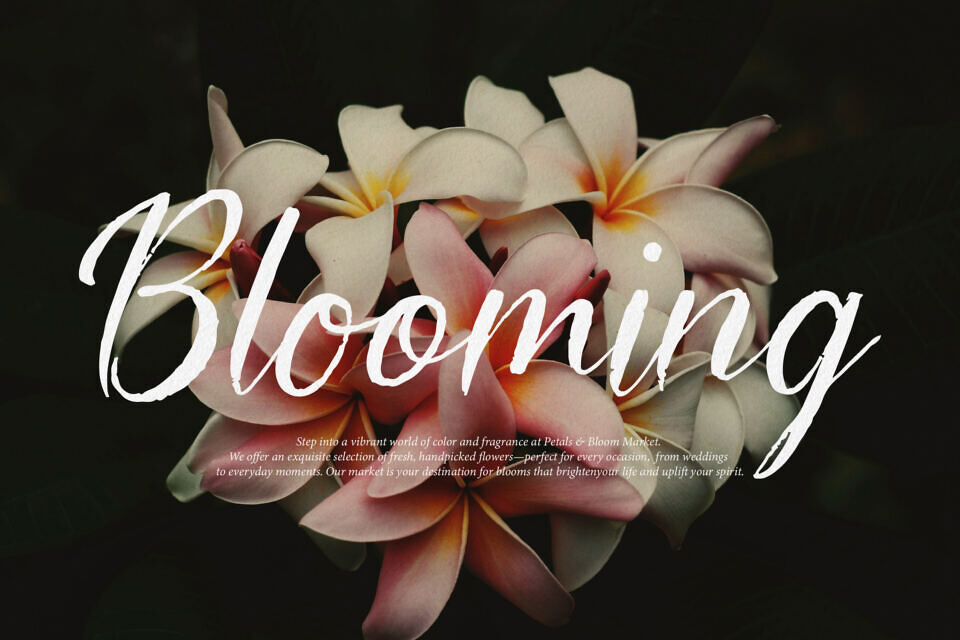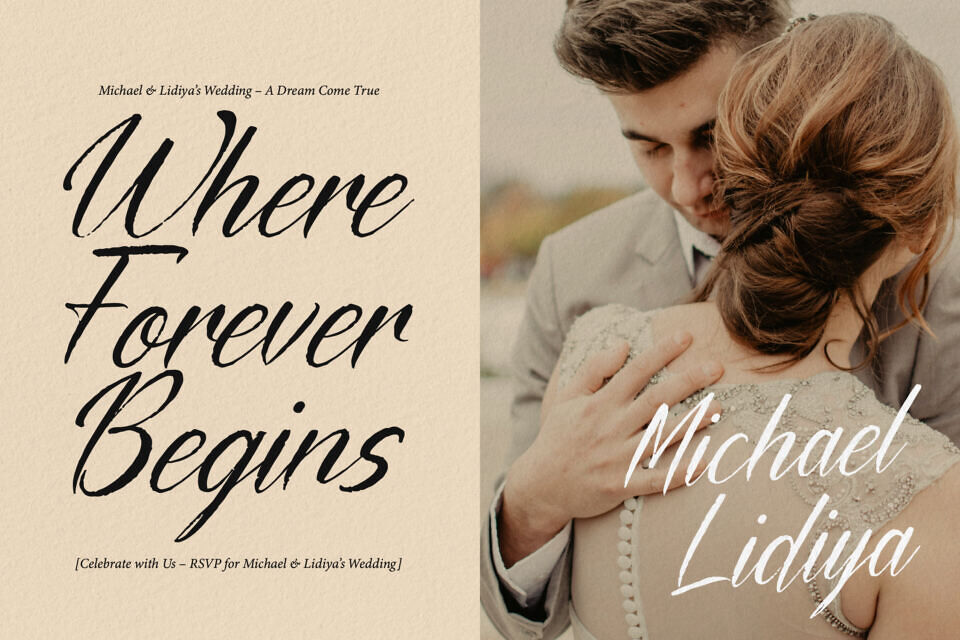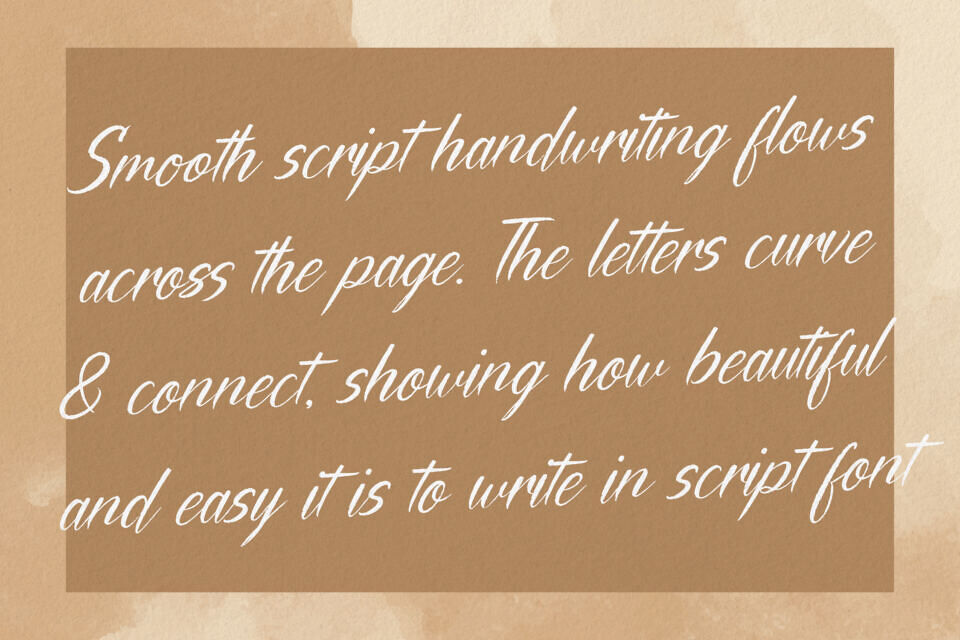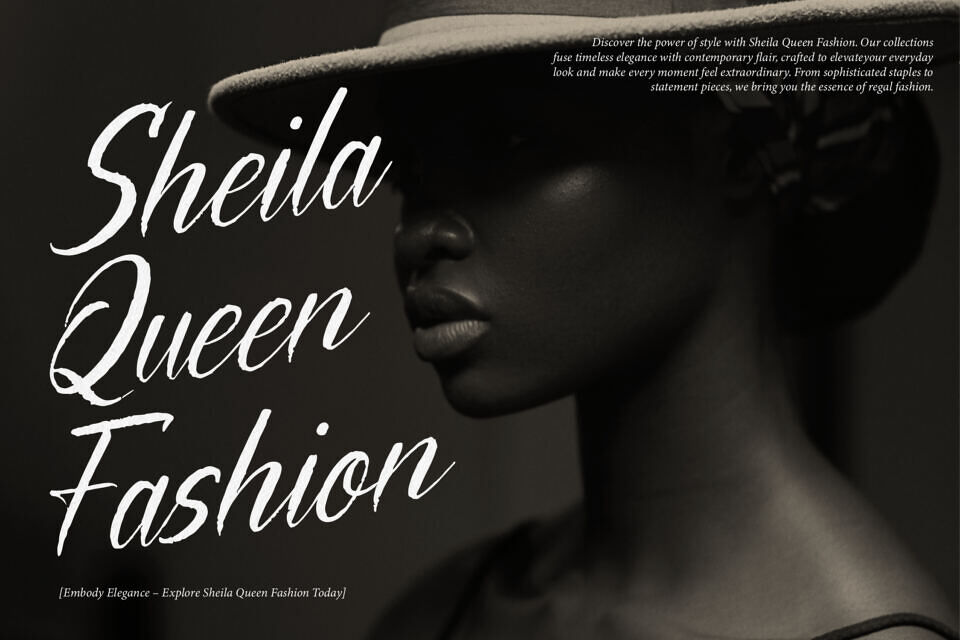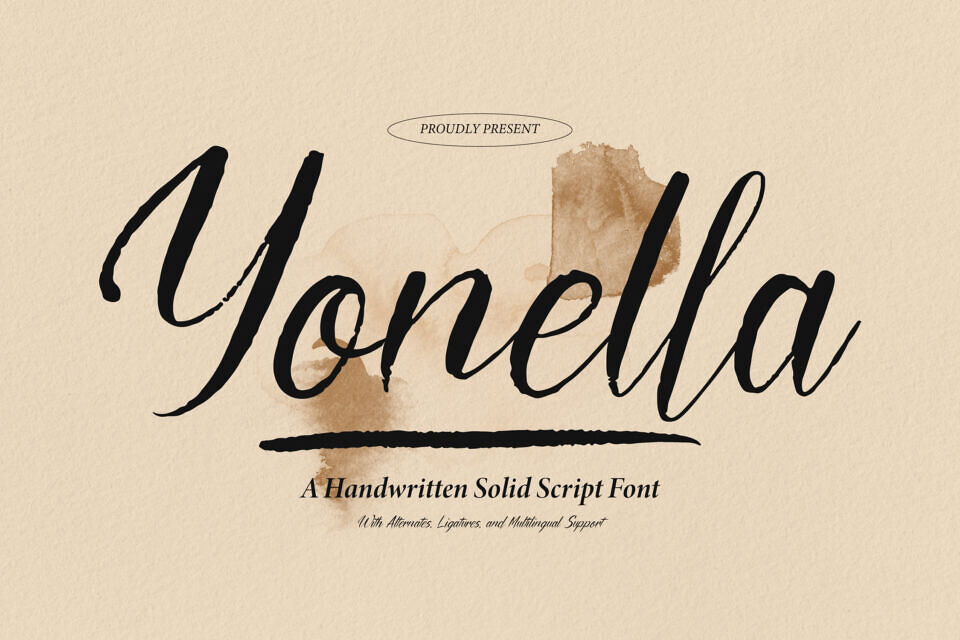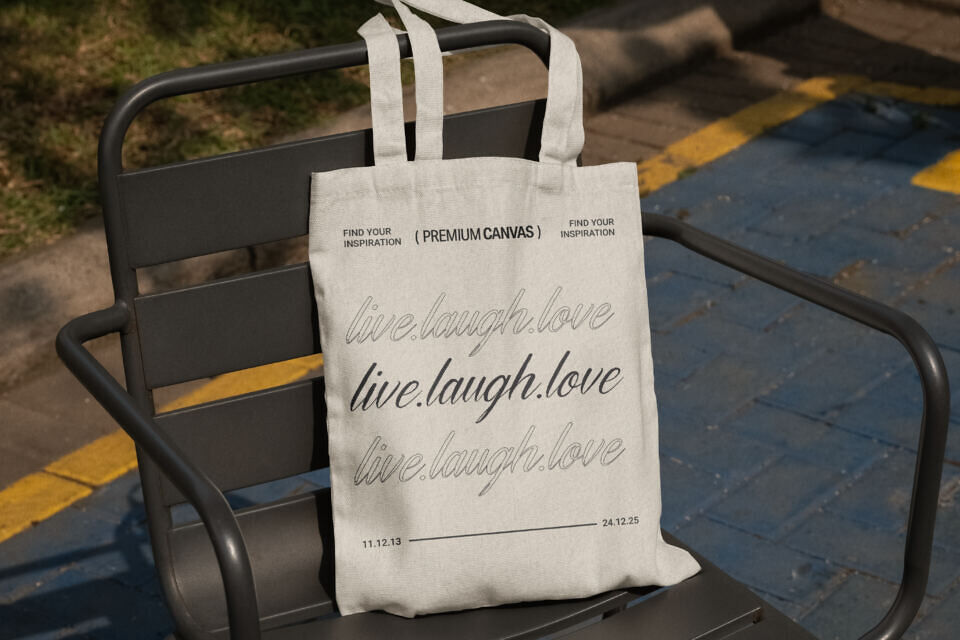
Yonella Font is a sophisticated handwritten script with a bold and elegant touch. Its flowing, brushstroke style is perfect for wedding invitations, logos, branding, greeting cards, and any project that needs a refined yet artistic feel. With alternates, ligatures, and multilingual support, Yonella brings versatility and beauty to your designs.